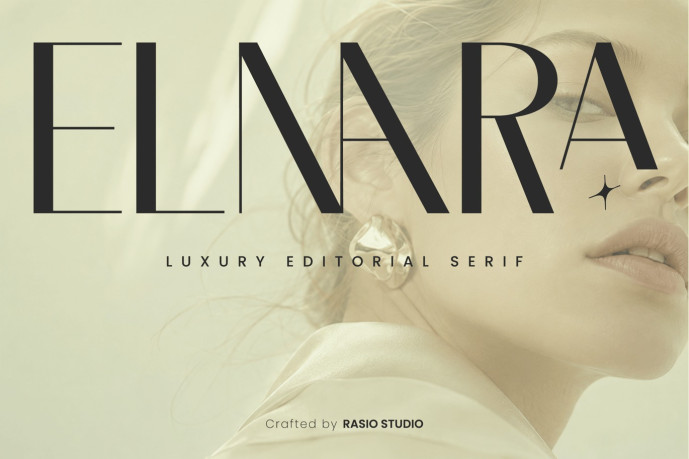
Elnara Luxury Editorial Font
Designer: Rasio Studio
Elnara Luxury Editorial Font is a luxury editorial typeface designed to convey refinement, confidence, and contemporary sophistication. Its high-contrast letterforms, elongated proportions, and carefully sculpted curves create a graceful visual rhythm that enhances headlines, logos, and premium typography. Inspired by modern fashion publications and luxury branding, the typeface balances classic serif elegance with a clean contemporary character, making every composition feel polished and distinctive. The family includes uppercase and lowercase characters, numerals, punctuation, and ligatures, giving designers greater flexibility when creating unique typographic compositions.
Whether used for for branding designers, fashion brands, beauty businesses, cosmetic companies, jewelry designers, wedding professionals, editorial publishers, luxury product packaging, boutique studios, creative agencies, lifestyle brands, social media creators, graphic designers, and professionals seeking an elegant luxury editorial serif typeface. Elnara adapts beautifully across a wide variety of creative projects. The refined details allow it to stand confidently as a striking display font while remaining clear and balanced for short editorial text, product names, and sophisticated branding systems that demand a memorable visual presence.
Uppercase & Lowercase
Numeral & Punctuations
Standard Ligatures